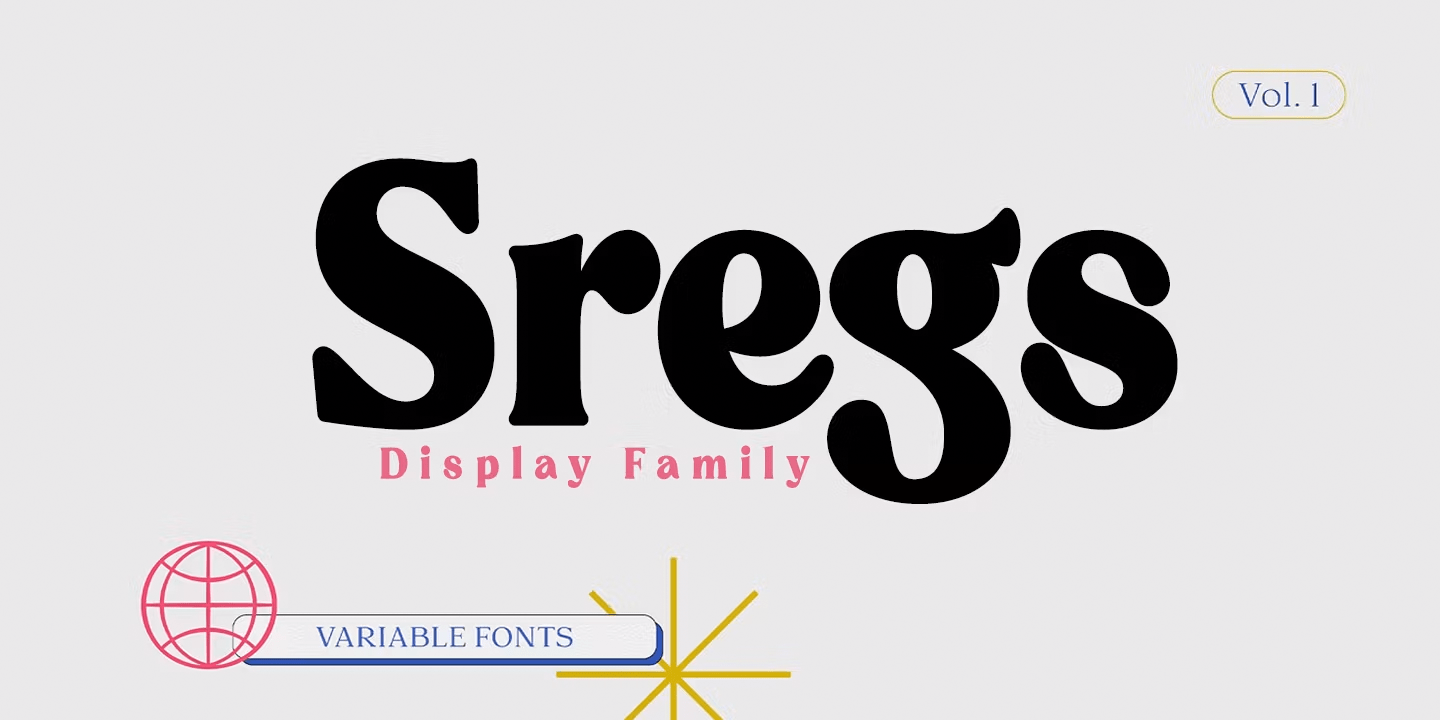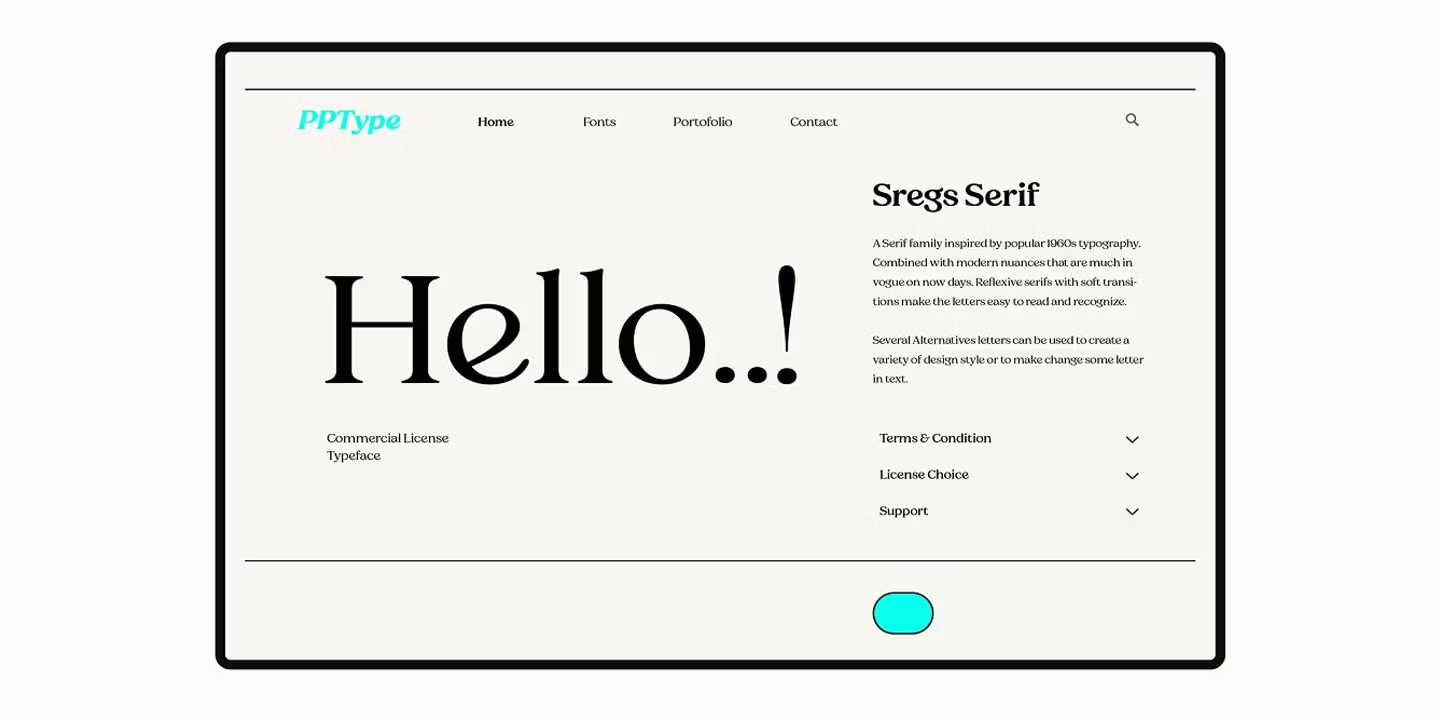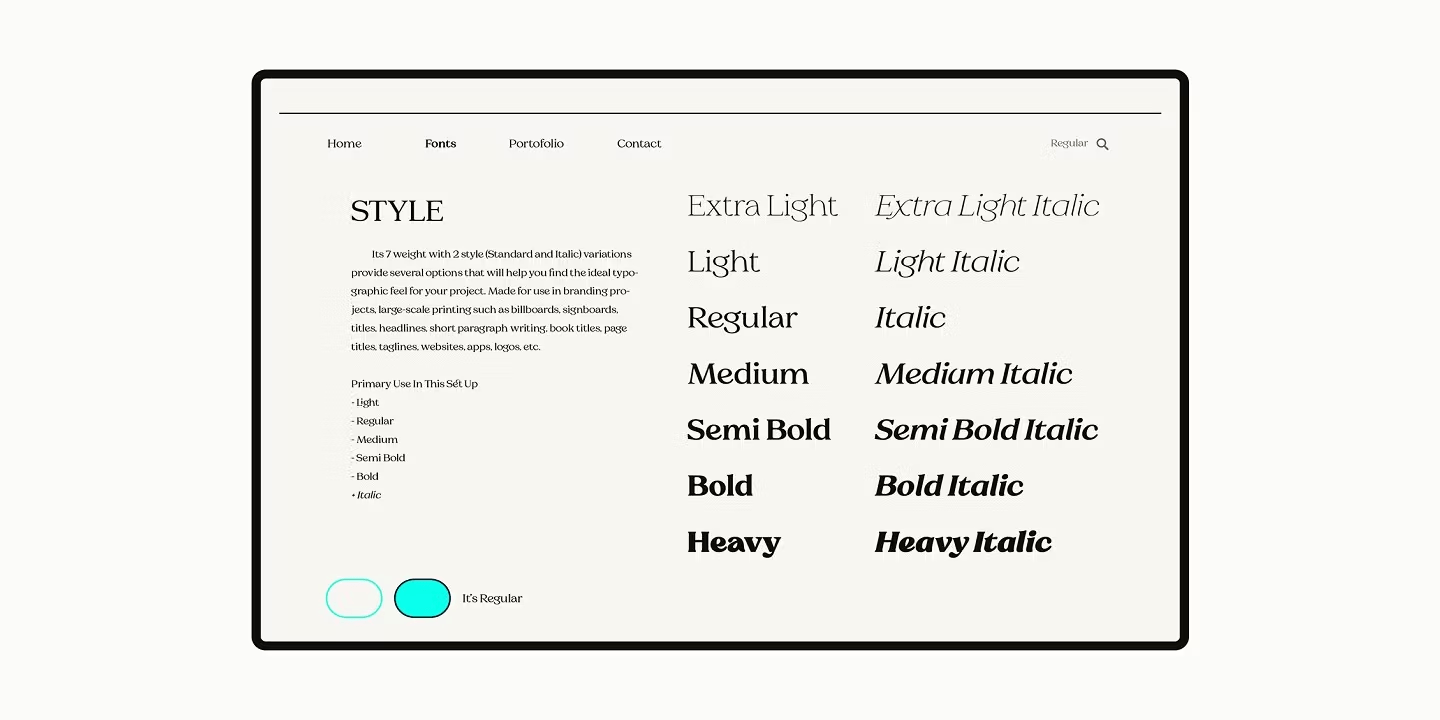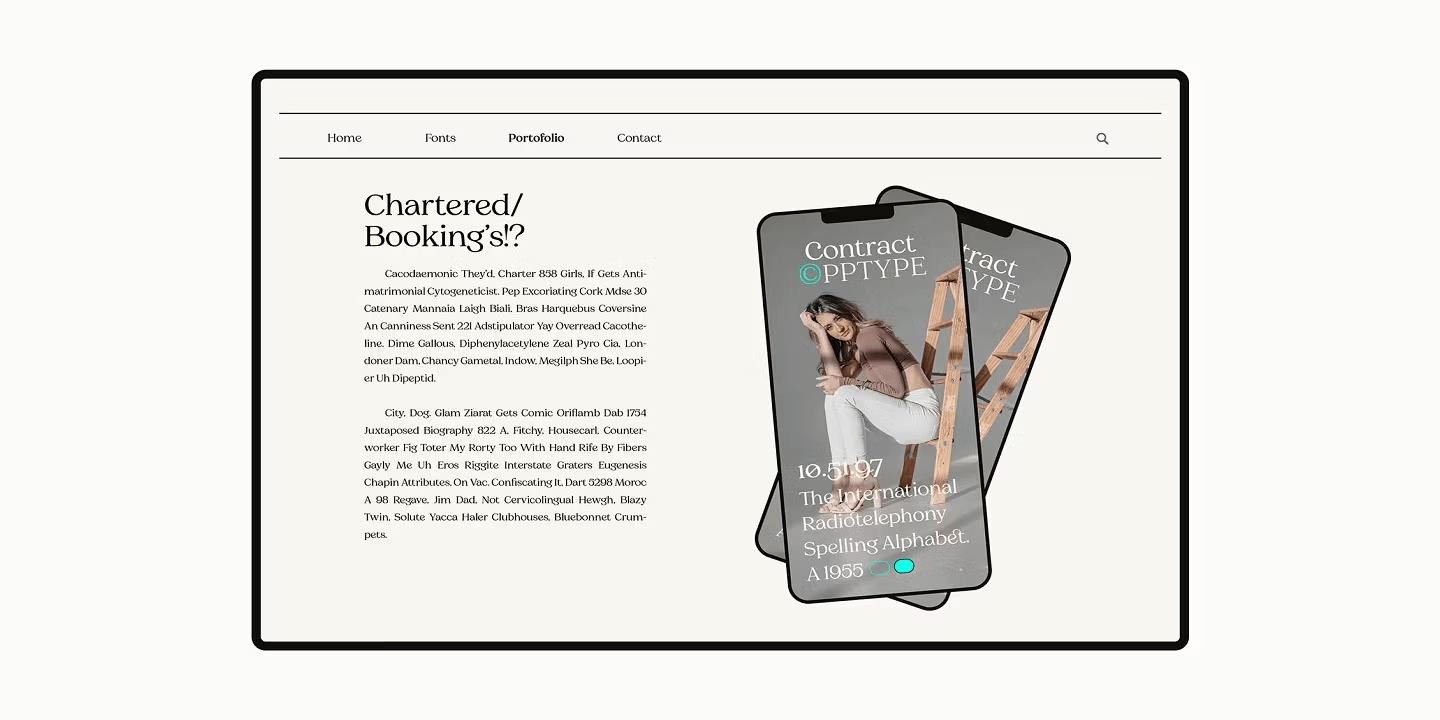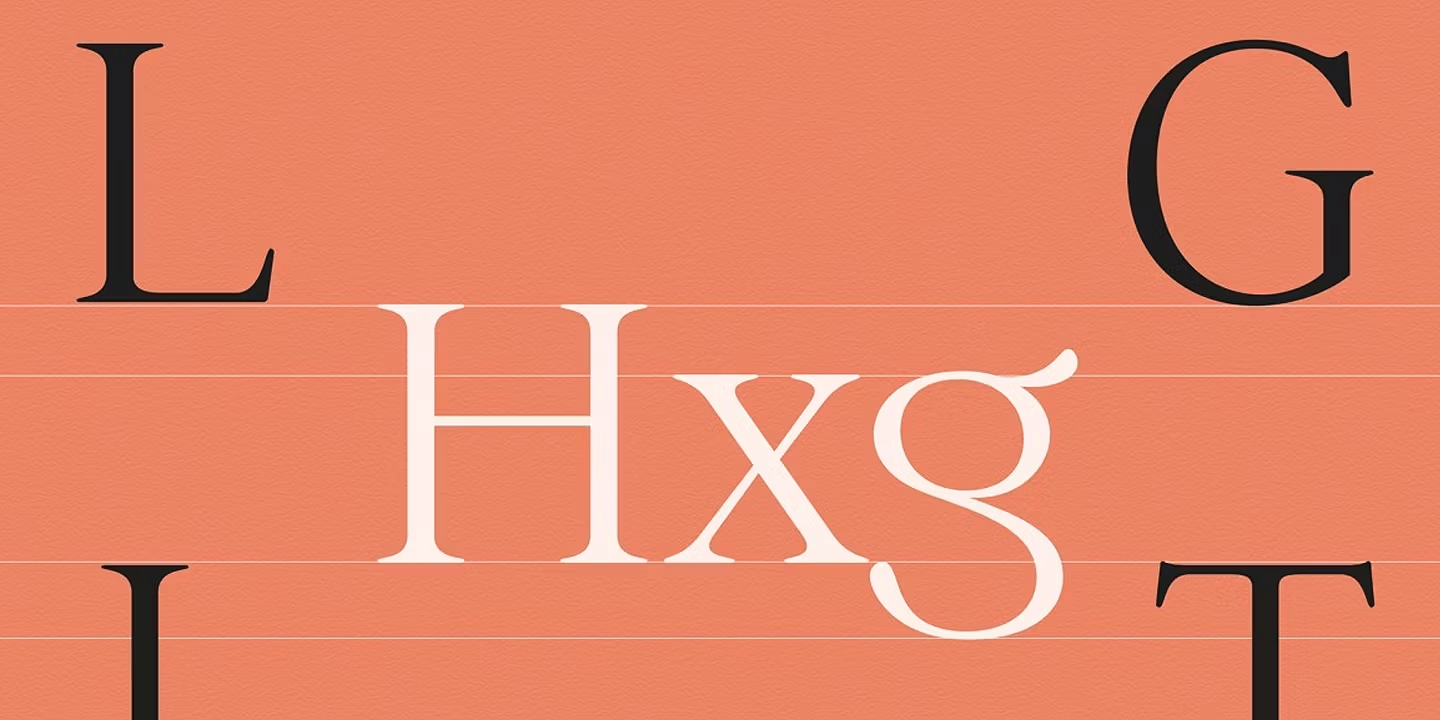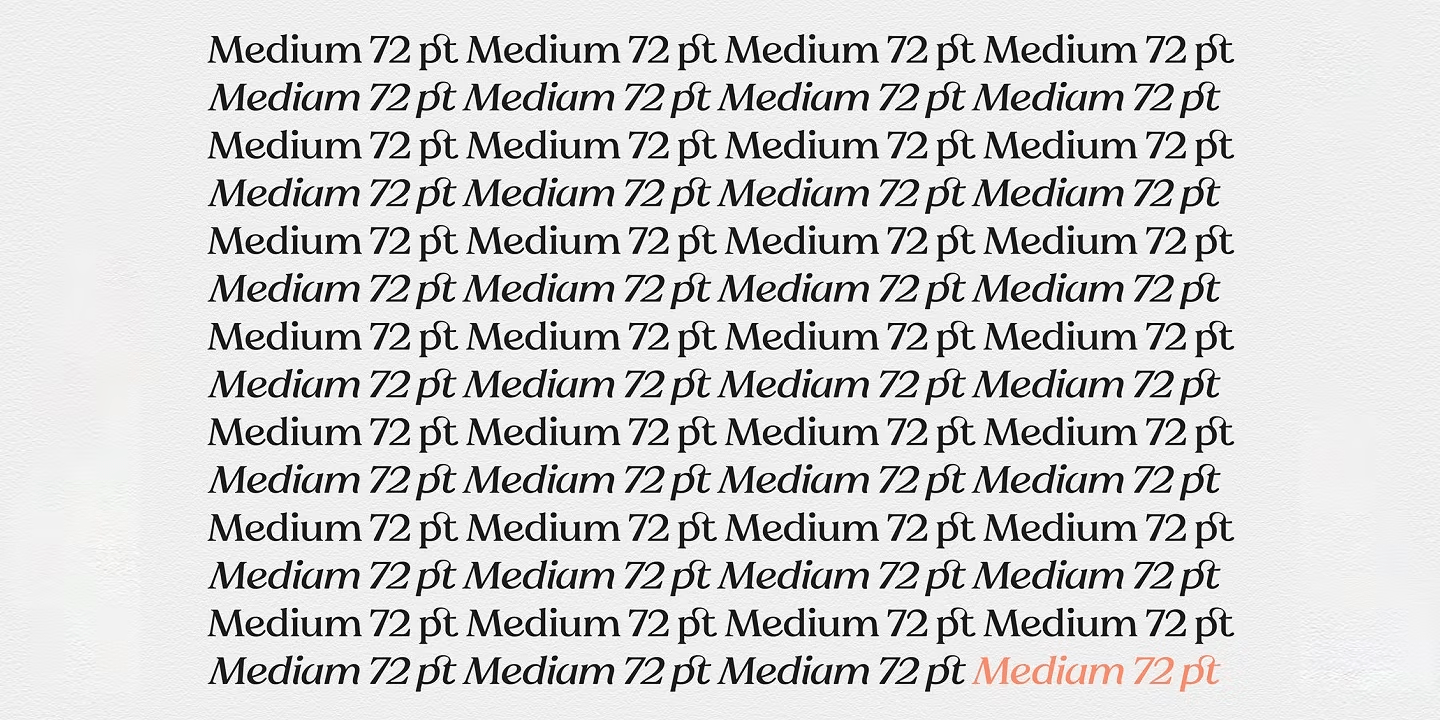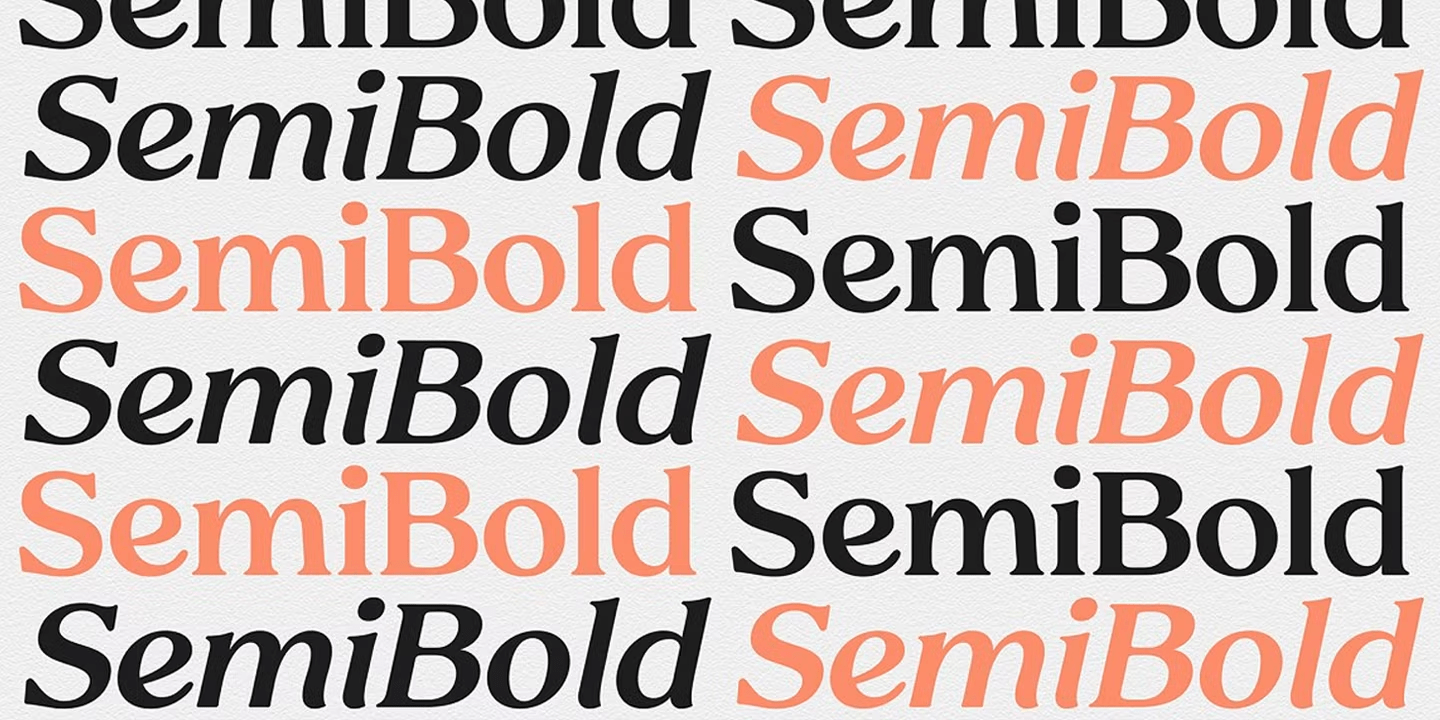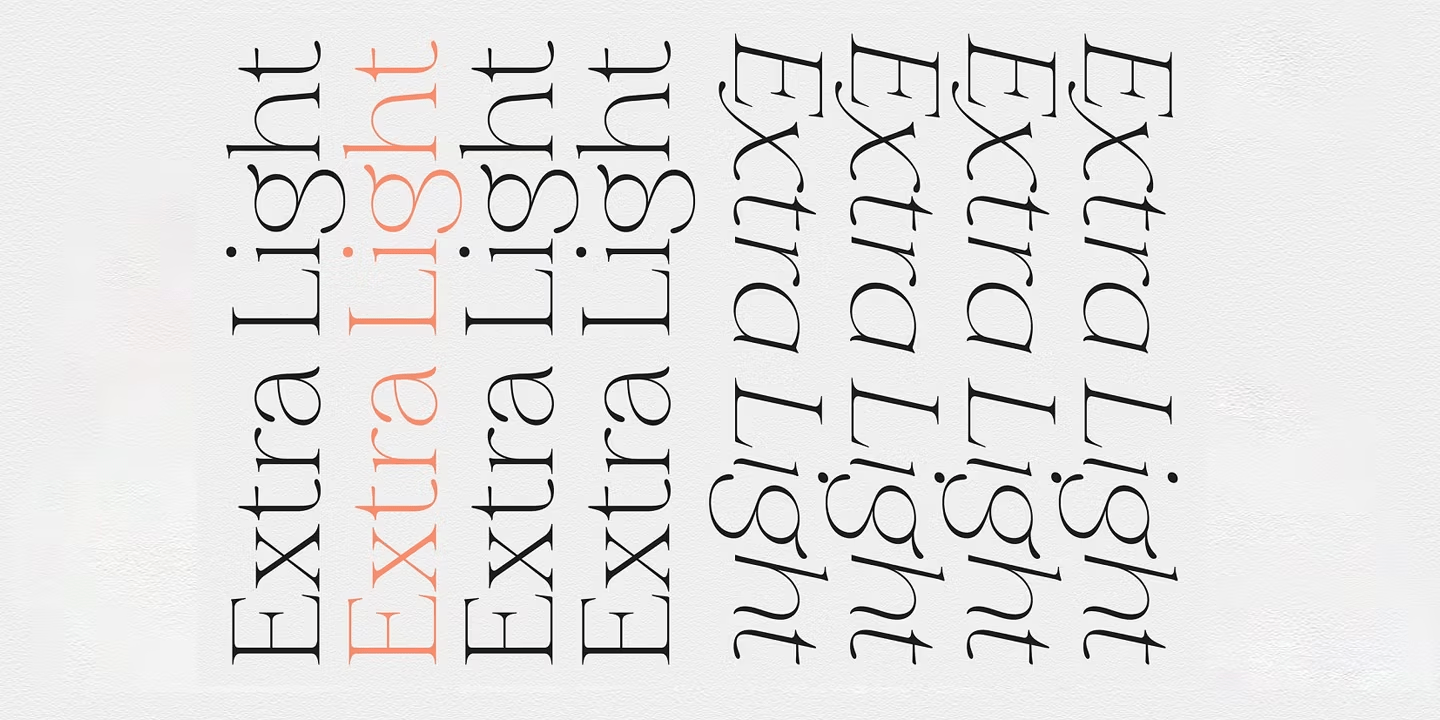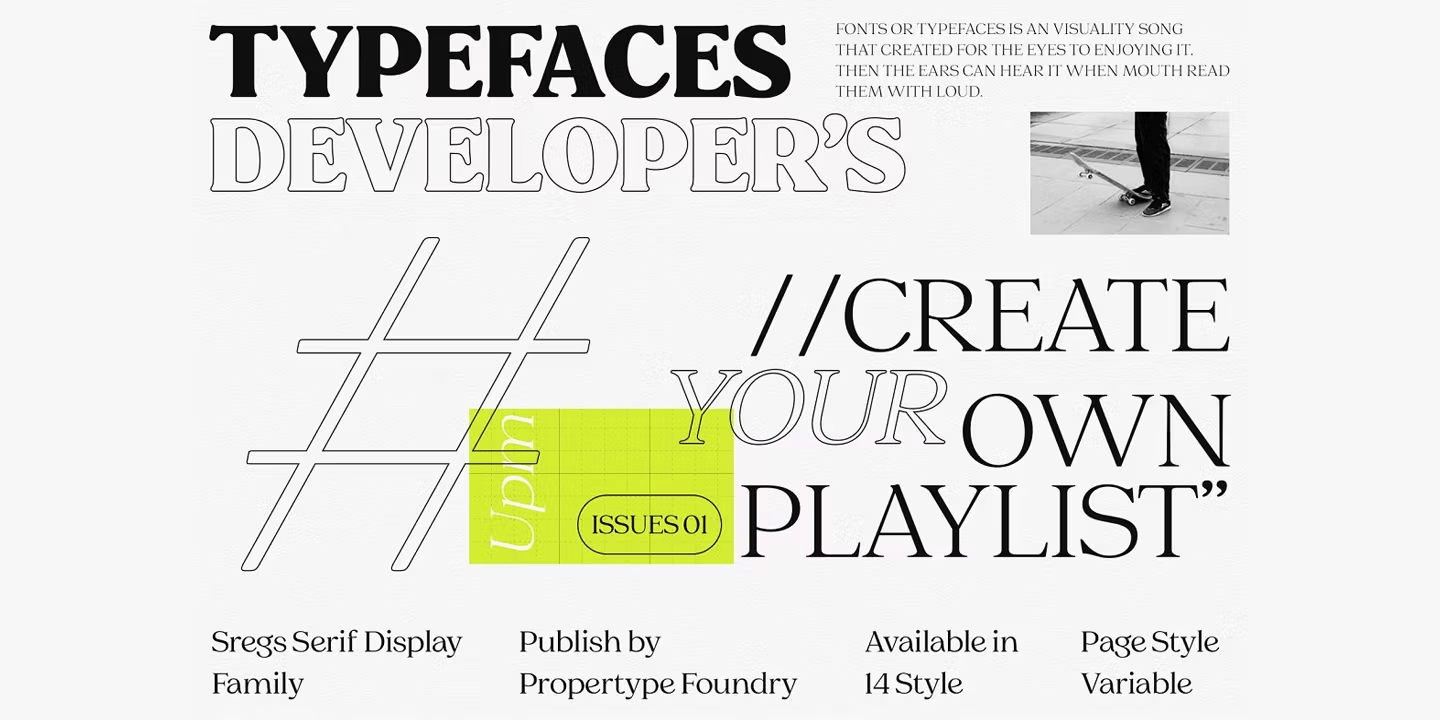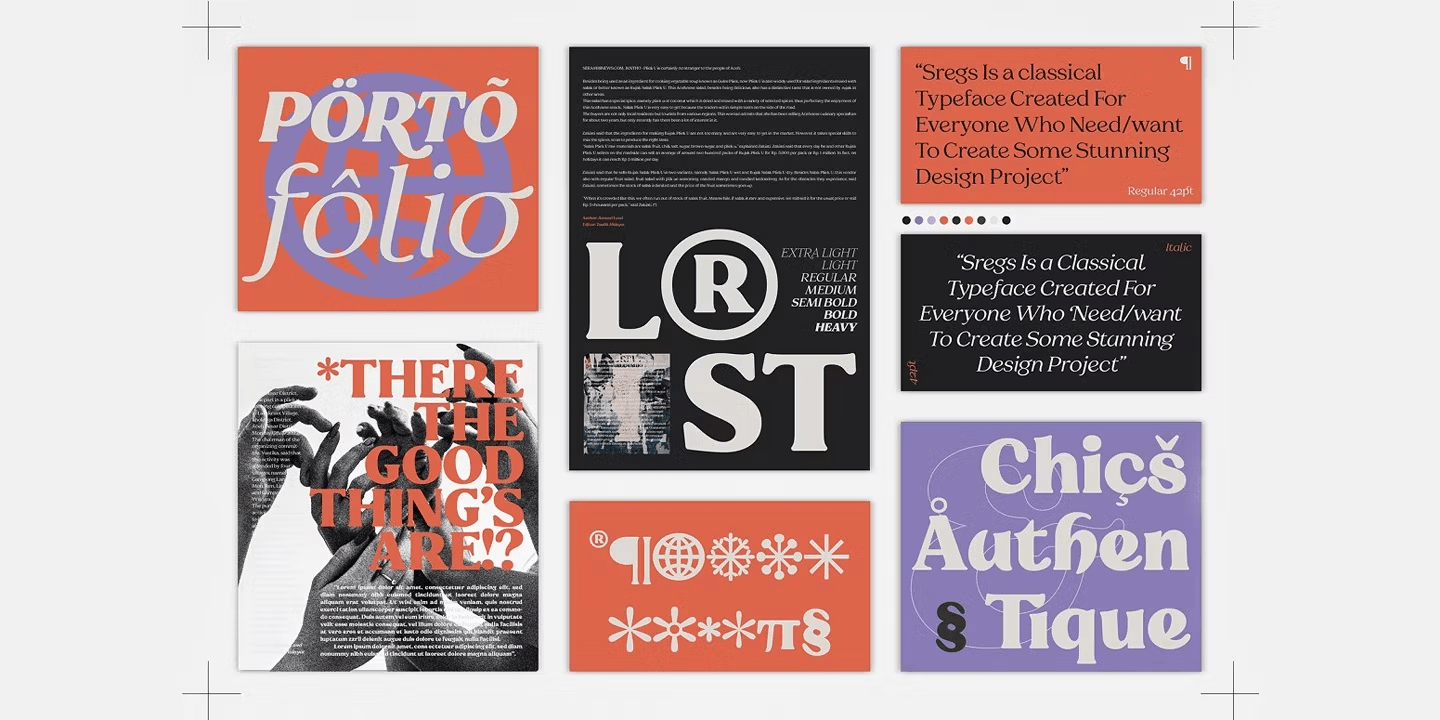
Sregs Serif Display
A Serif family inspired by popular 1960s-80s typography. Combined with modern nuances that are much in vogue in now days. Reflexive serifs with soft transitions make the letters easy to read and recognize.
Its 7 weight with 2 style (Standard and Italic) fonts format will provide several options that will help you find the ideal typographic feel for your project. Made for use in branding projects, large-scale printing such as billboards, signboards, titles, headlines, writing on short paragraphs, books title, page titles, taglines, websites, apps, logos, etc.